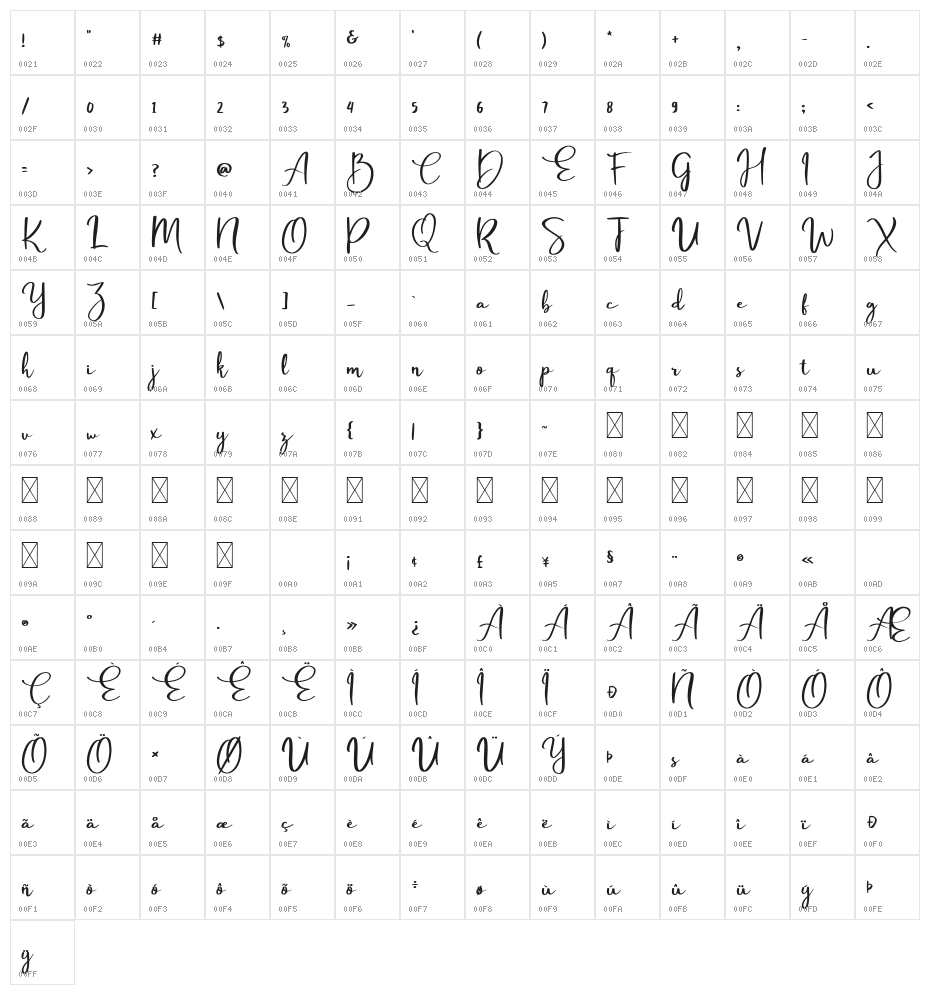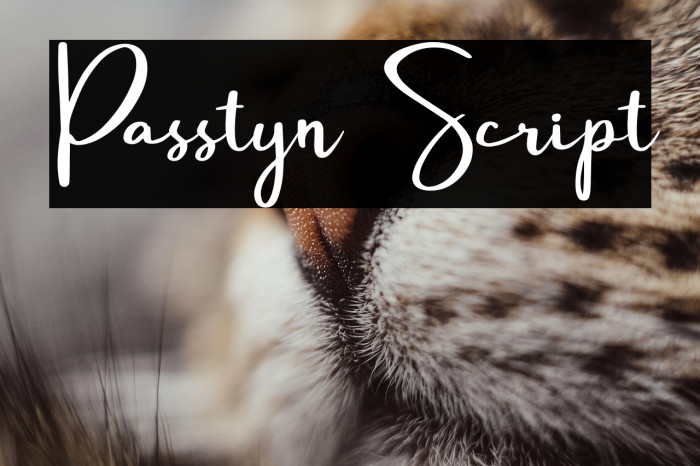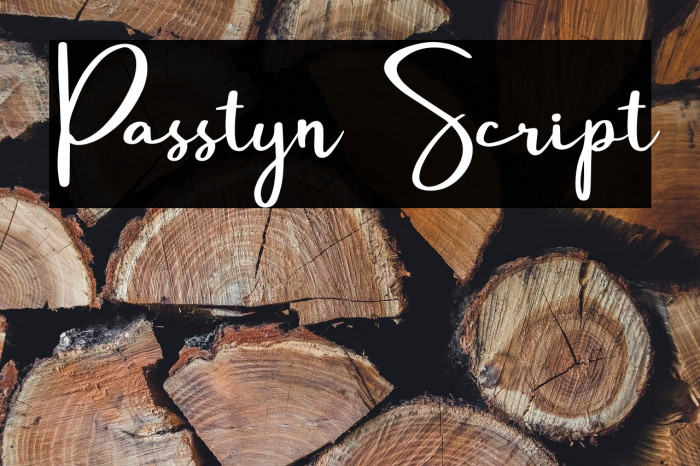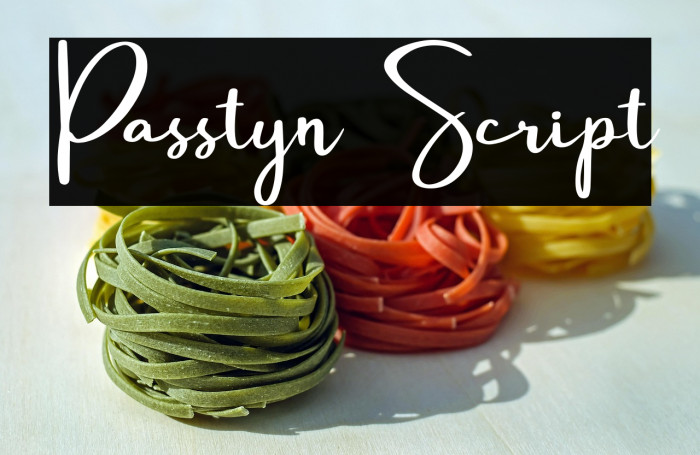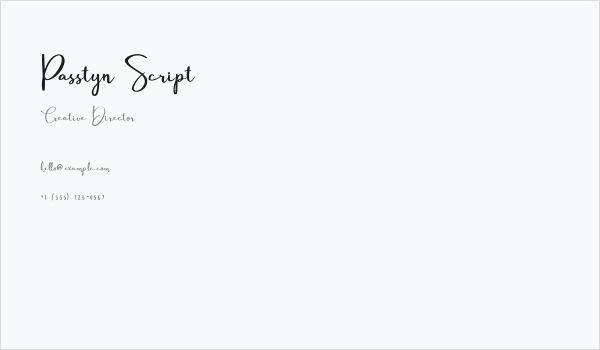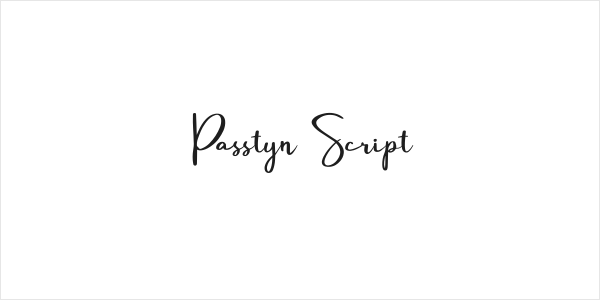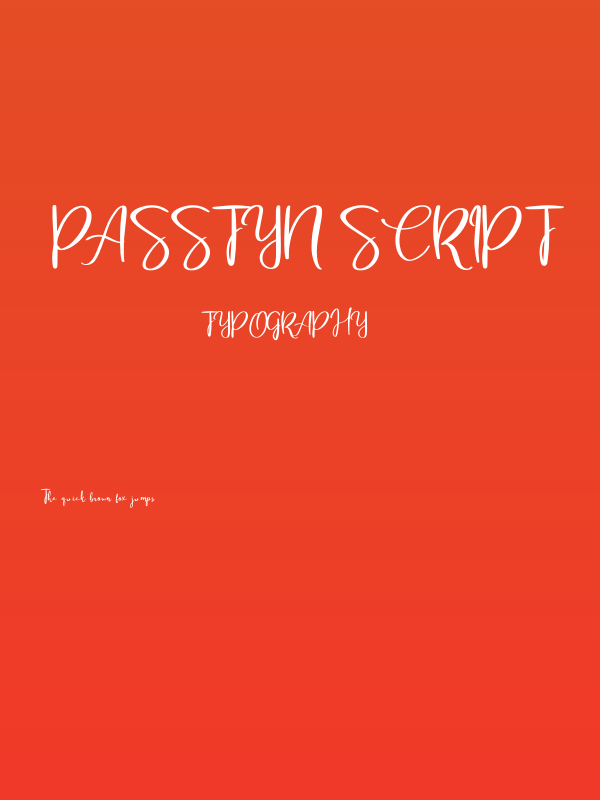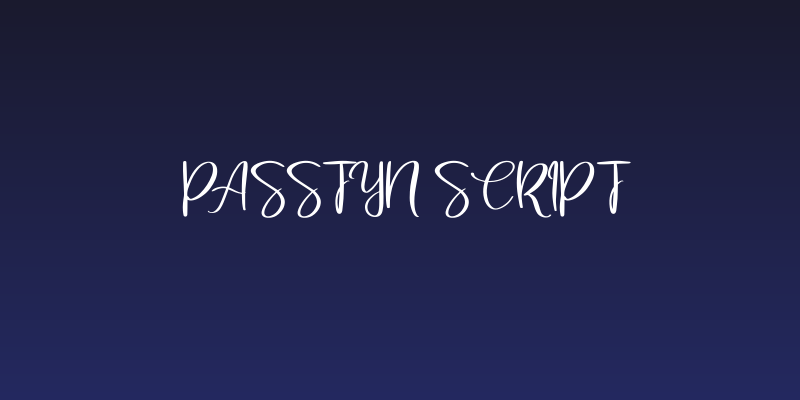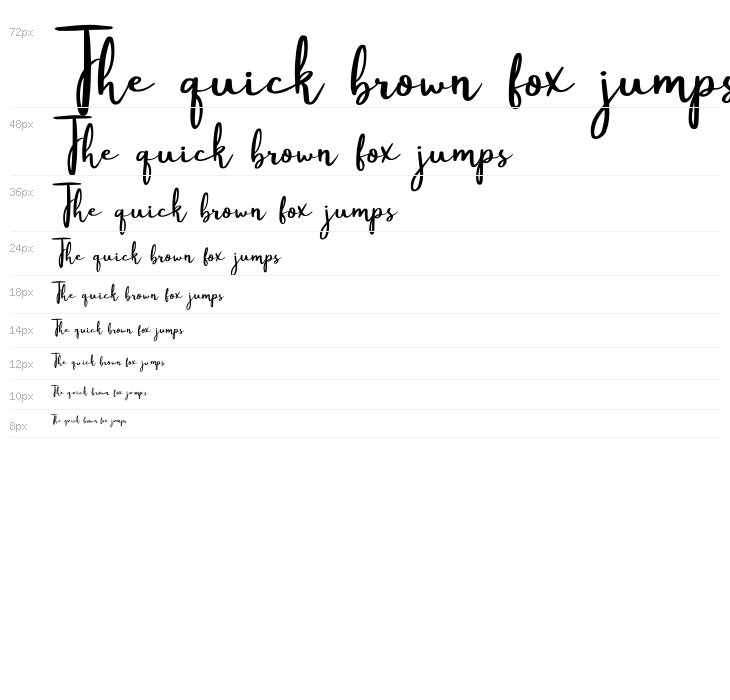
Passtyn Script Font
Passtyn Script Description
This font exudes a lively and elegant script style, characterized by its flowing, cursive letterforms that mimic the fluidity of handwriting. The uppercase letters are particularly ornate, with sweeping curves and loops that add a touch of sophistication. The lowercase letters maintain a consistent style, offering a harmonious blend of readability and decorative flair. The numerals and special characters are crafted with similar attention to detail, ensuring a cohesive look across all elements. This font is perfect for projects that require a personal, artistic touch.
| Use Case | Logos, Invitations, Decorative text |
| Proposed Projects | Ideal for wedding invitations, greeting cards, branding, and logo design. |